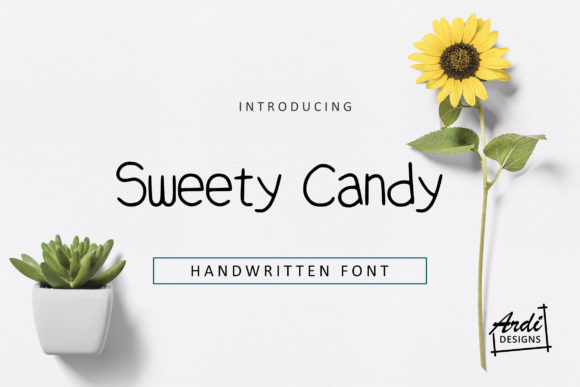
Welcome to the world of typography, where letters dance and words take flight, where imagination knows no bounds. Enter the realm of Sweety Candy Font, a sans serif masterpiece that captivates hearts with its timeless grace and unwavering charm. Born from the creative forge of ArdiDesigns, Sweety Candy is more than just a font; it's an artistic expedition into the depths of elegance and sophistication, a testament to the enduring beauty of classicism.
From its well-balanced Latin details to its distinctive contrasts, Sweety Candy is a symphony of harmonious proportions, a visual masterpiece that dances before your eyes. Its curves whisper tales of refinement, while its sharp edges add a touch of modernity, an air of intrigue that keeps you captivated. Whether you're a seasoned designer seeking to elevate your work or a creative spirit yearning for a touch of elegance, Sweety Candy is your muse, your gateway to typographic transcendence.
Step into the realm of endless possibilities, where Sweety Candy transforms your words into works of art. Create logos that radiate sophistication, branding that exudes timeless appeal, and marketing materials that leave a lasting impression. Let Sweety Candy's versatile nature guide you, from delicate wedding invitations and enchanting social media posts to captivating book covers and eye-catching posters. The possibilities are as boundless as your imagination.
With Sweety Candy, you're not just downloading a font; you're embarking on a journey of creative liberation. Its versatility knows no limits, adapting seamlessly to a myriad of design styles and projects. From traditional elegance to contemporary chic, from playful whimsy to bold statements, Sweety Candy is your trusted companion, your faithful partner in design exploration.
So, let the allure of Sweety Candy ignite your creativity, let its timeless beauty inspire you to reach new heights of design excellence. Embrace the power of typography, unlock the secrets of visual enchantment, and let your imagination soar with Sweety Candy Font. The world of stunning designs awaits, and Sweety Candy holds the key.